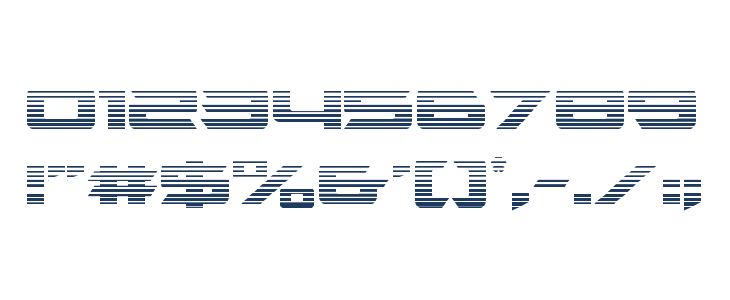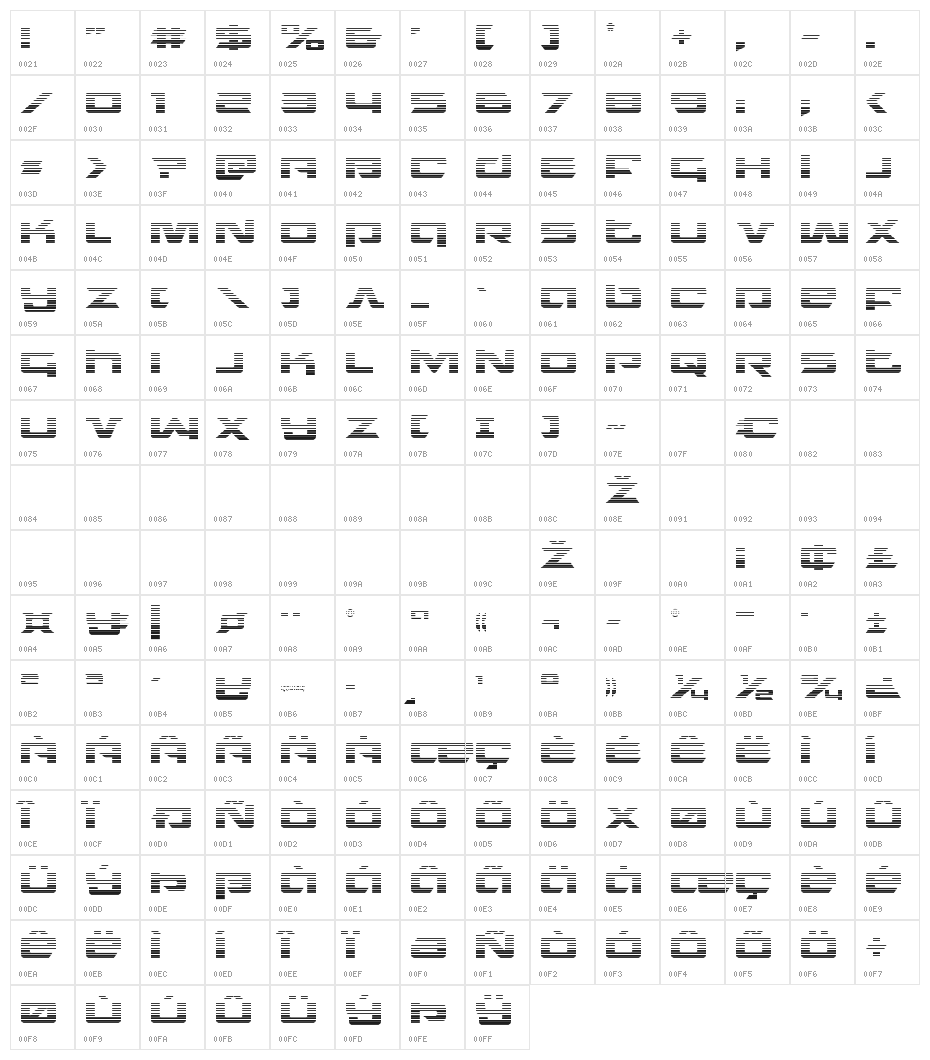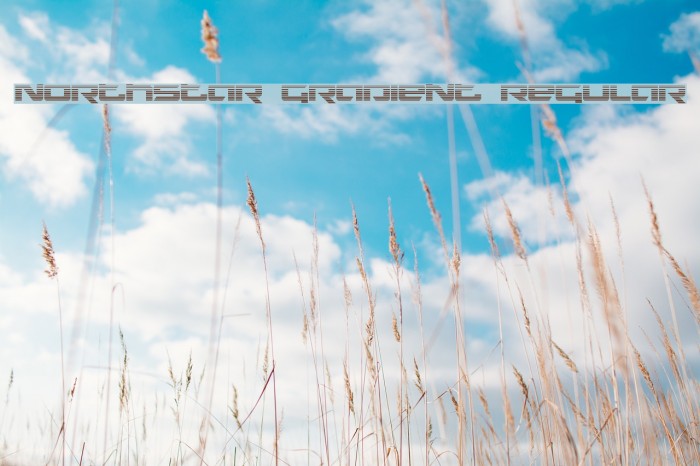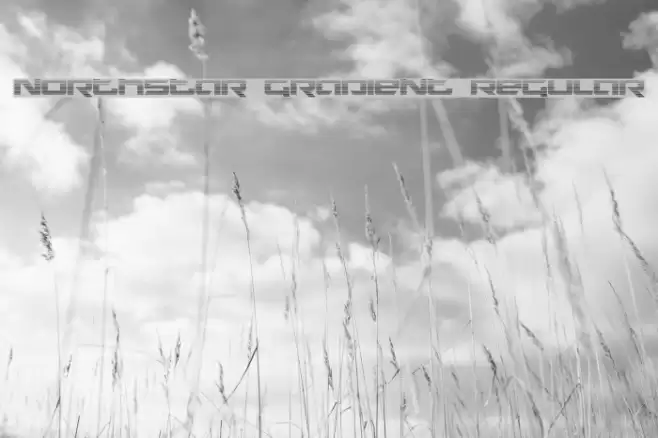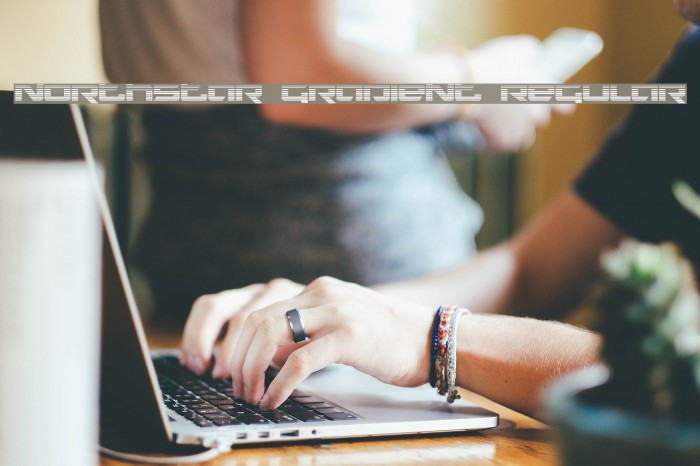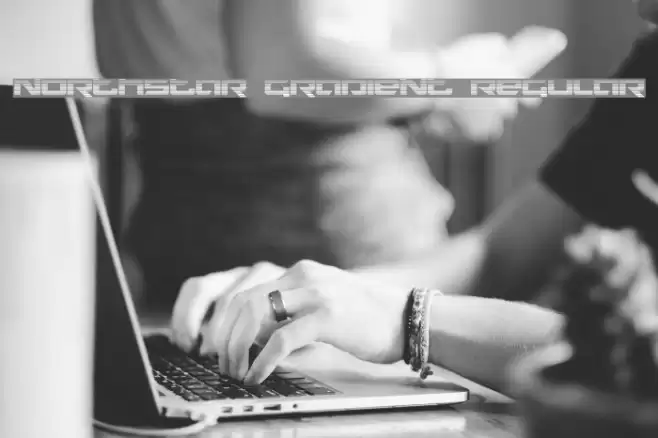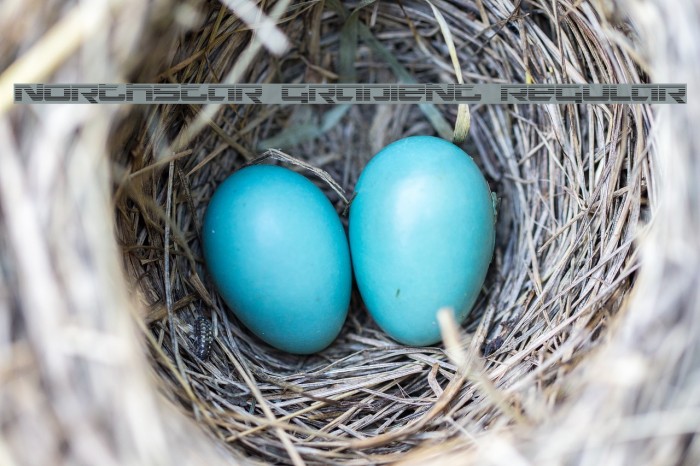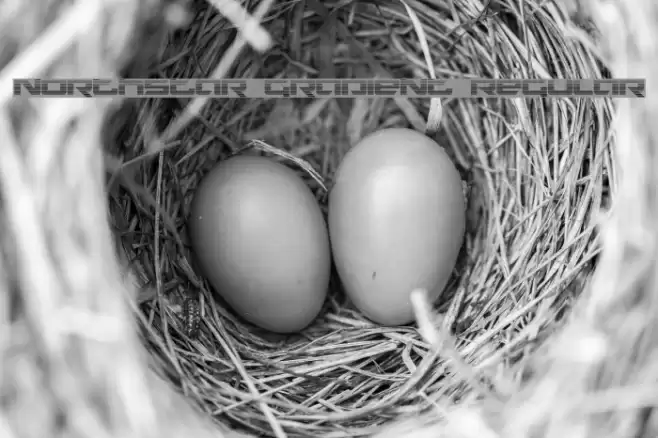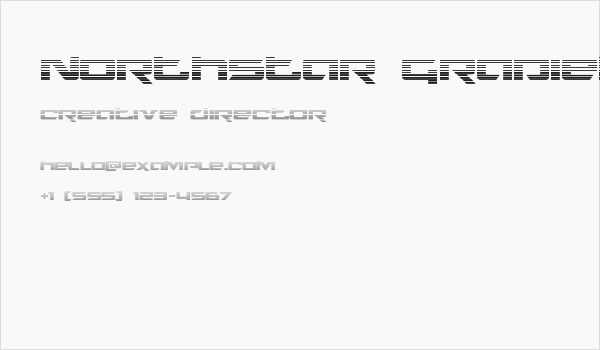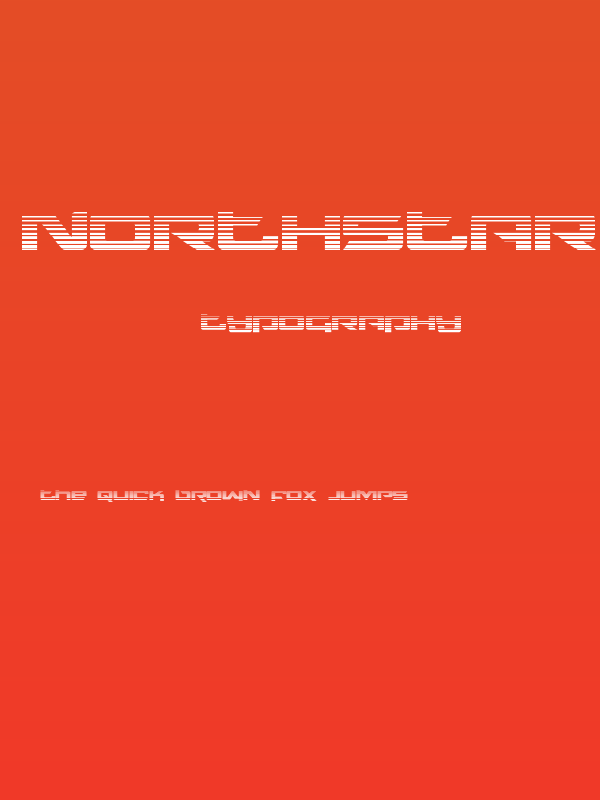
Northstar Gradient Regular Font
Northstar Gradient Regular Description
This font features a futuristic and geometric design with a distinct gradient effect created by horizontal lines. Each character is constructed with a series of parallel lines that give a sense of movement and depth. The uppercase and lowercase letters maintain a consistent style, emphasizing sharp angles and clean lines. The numerals and special characters follow the same design principles, ensuring uniformity across all glyphs. This font's unique aesthetic makes it stand out, ideal for projects that require a modern and dynamic look.
| Proposed Projects | Ideal for sci-fi themed designs, technology branding, video game titles, and modern posters. |